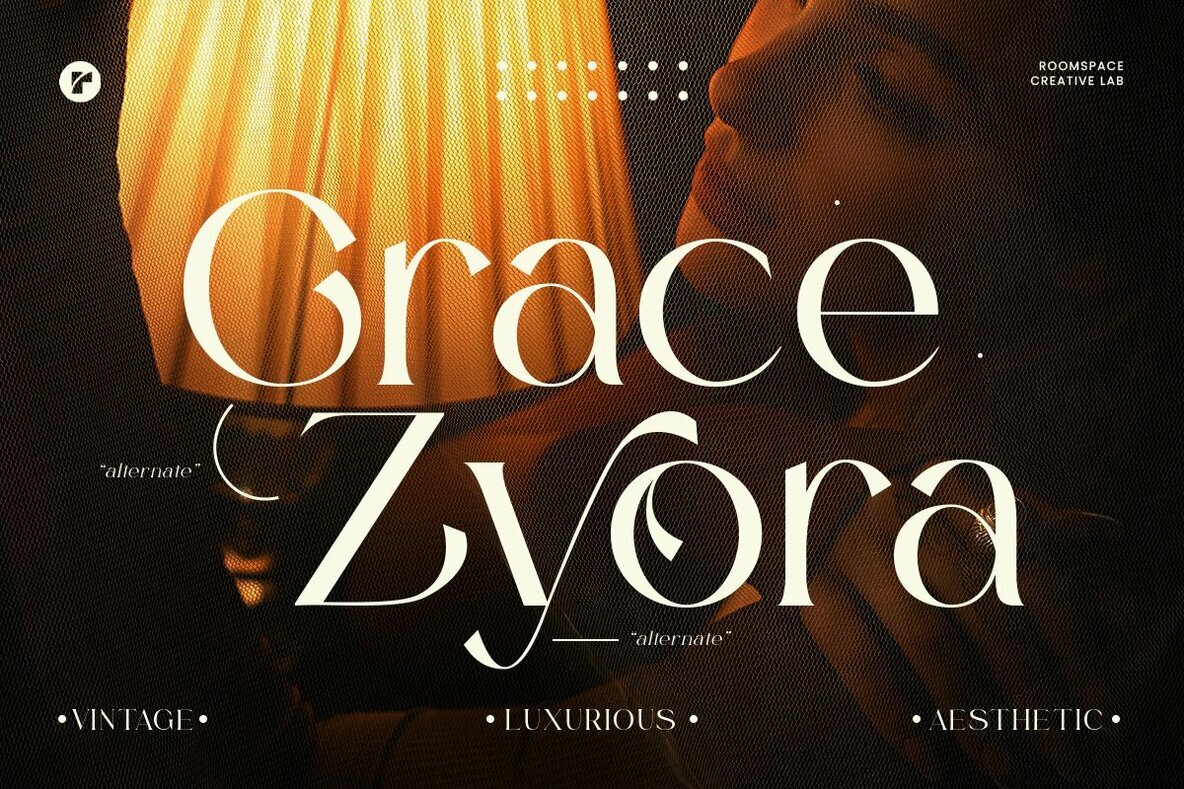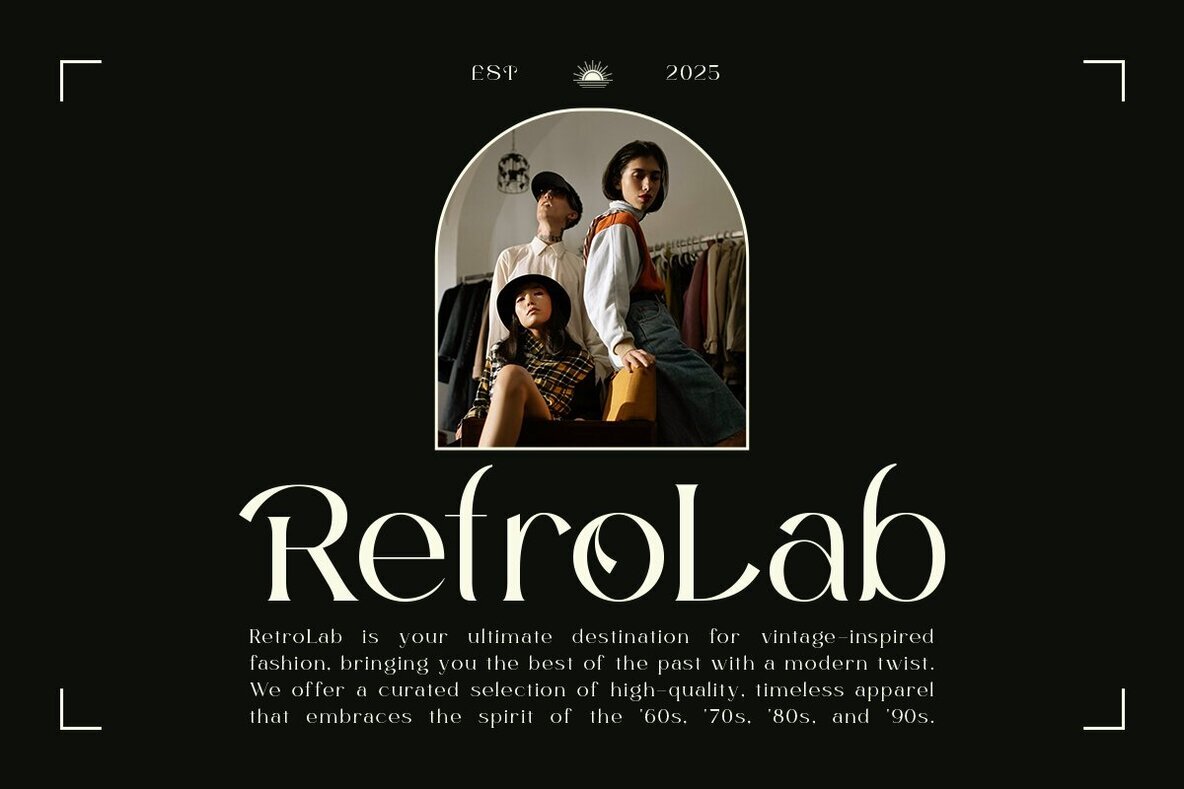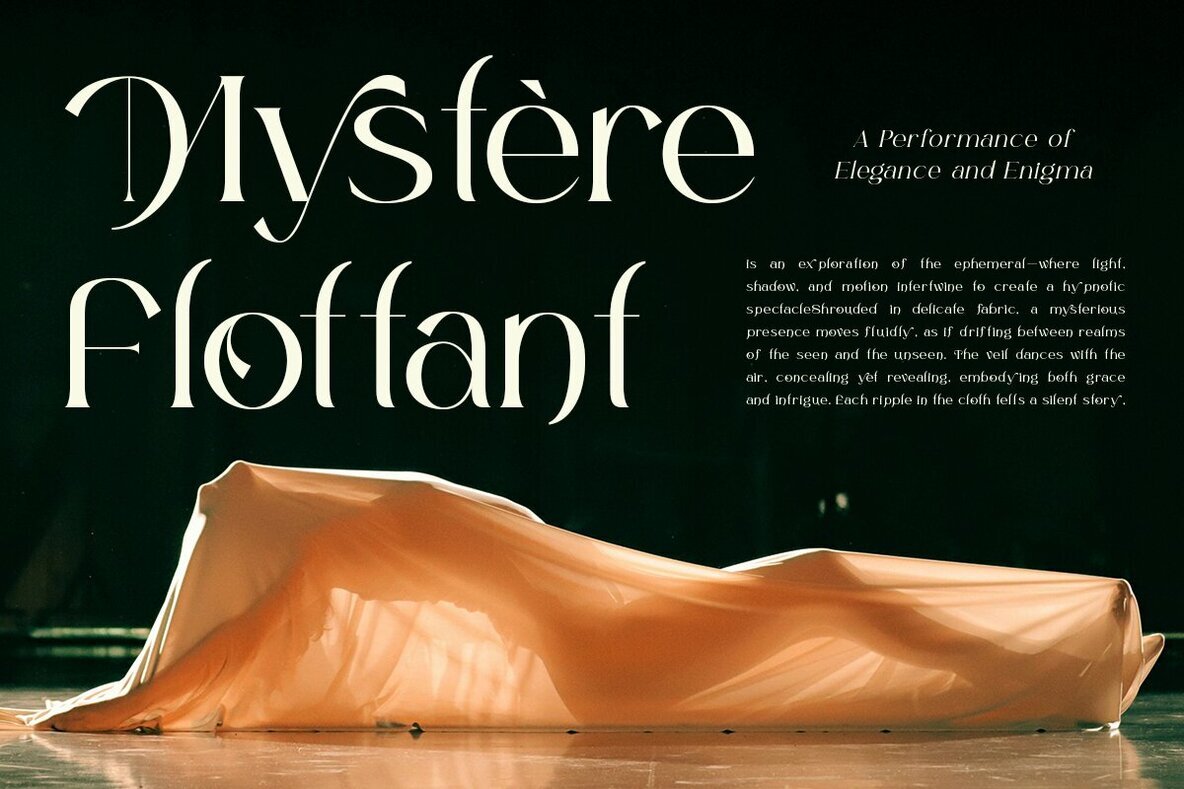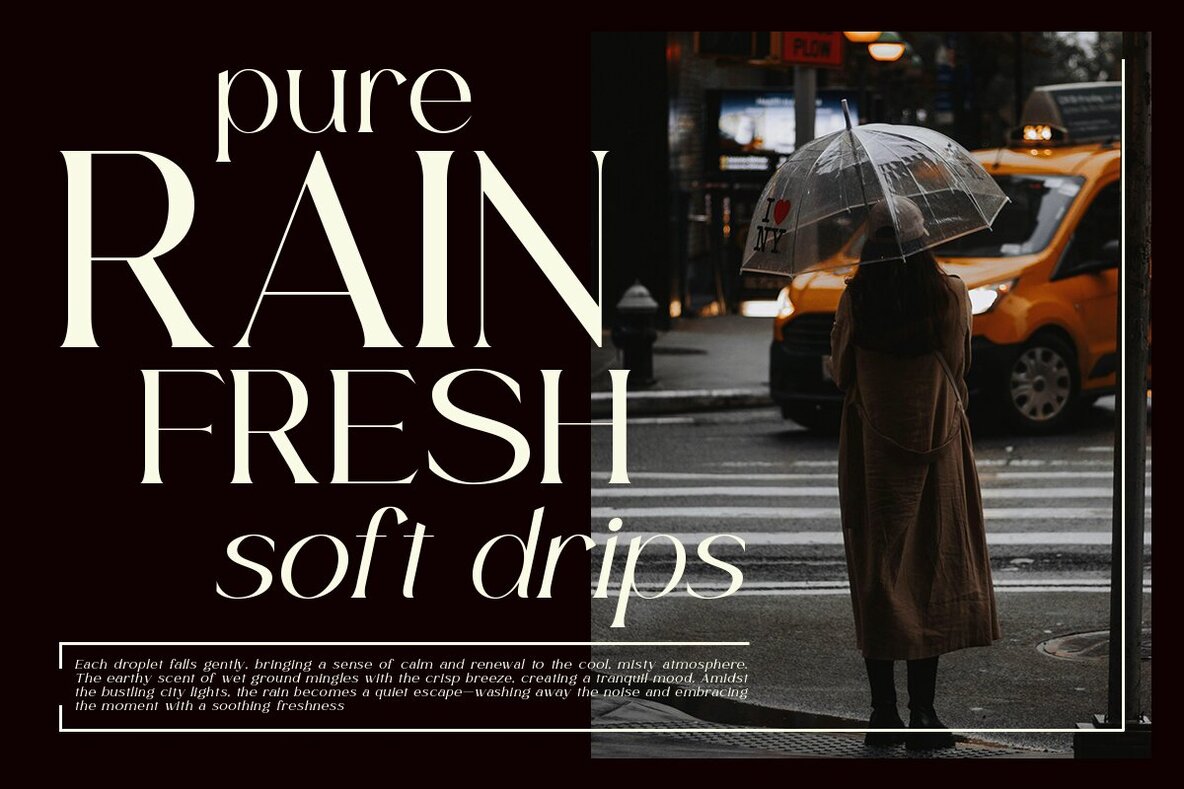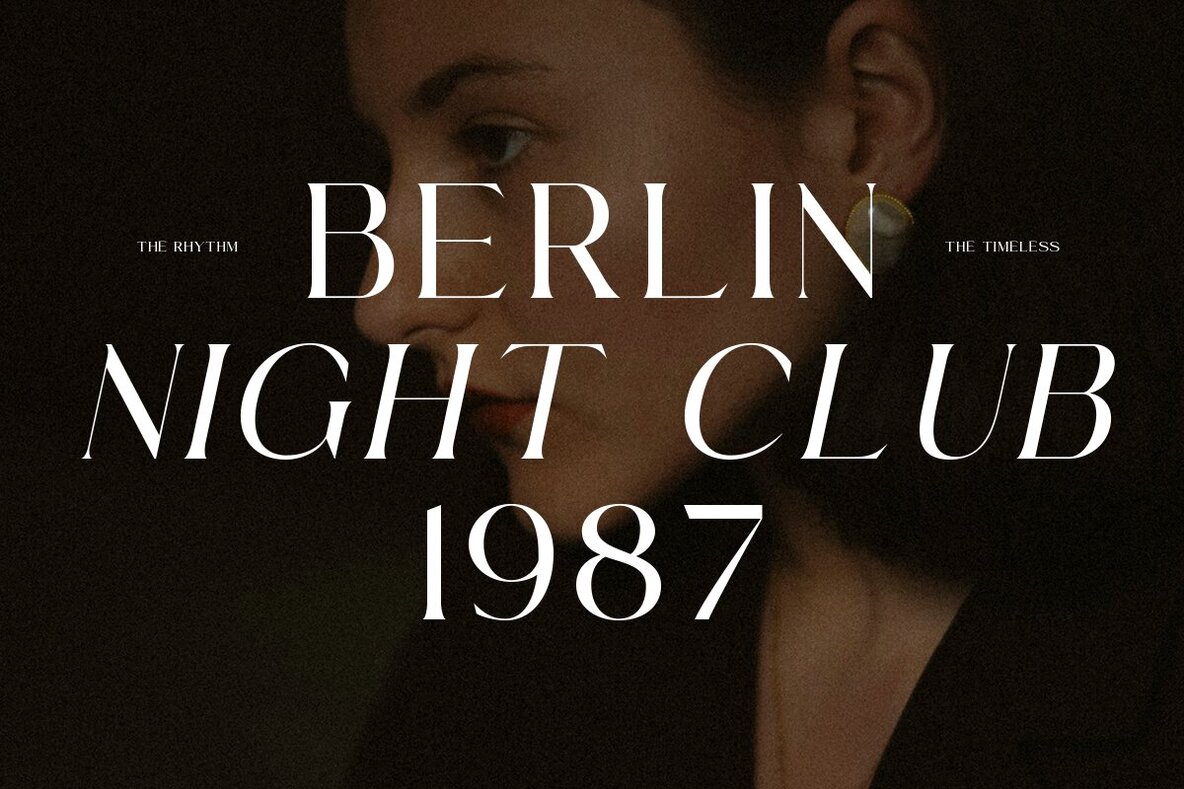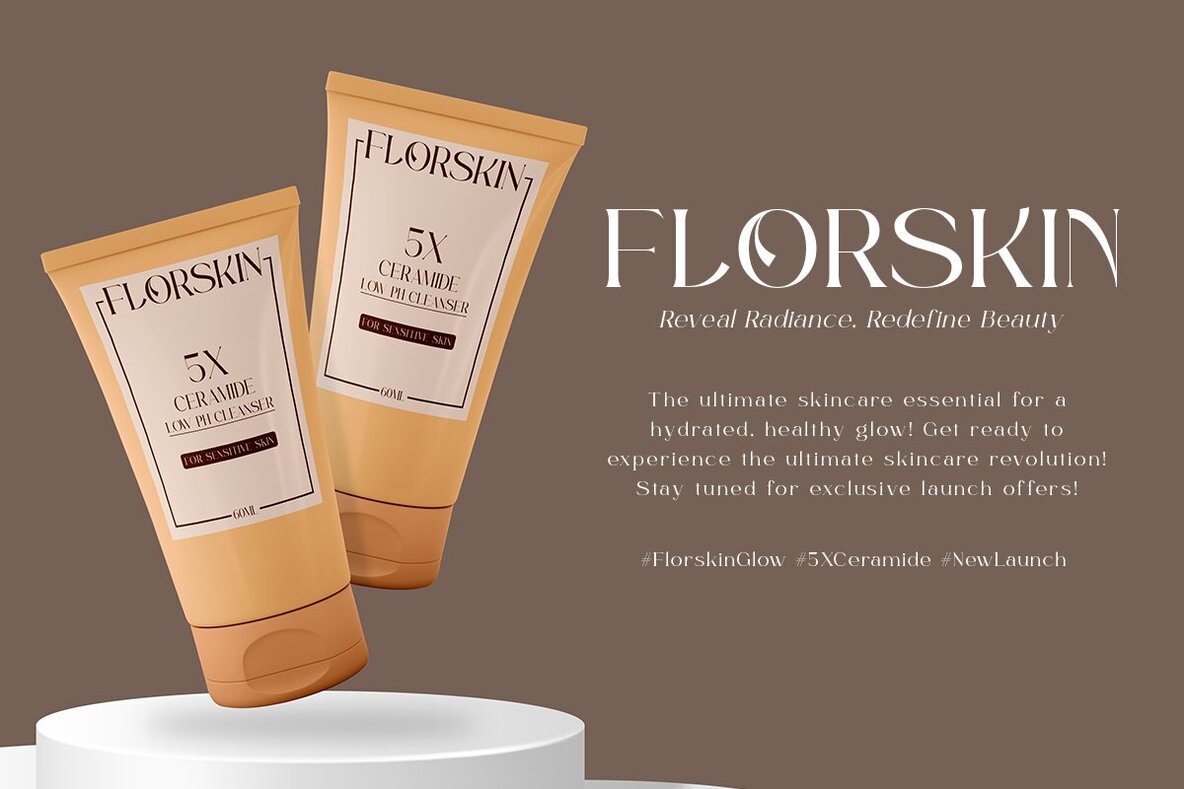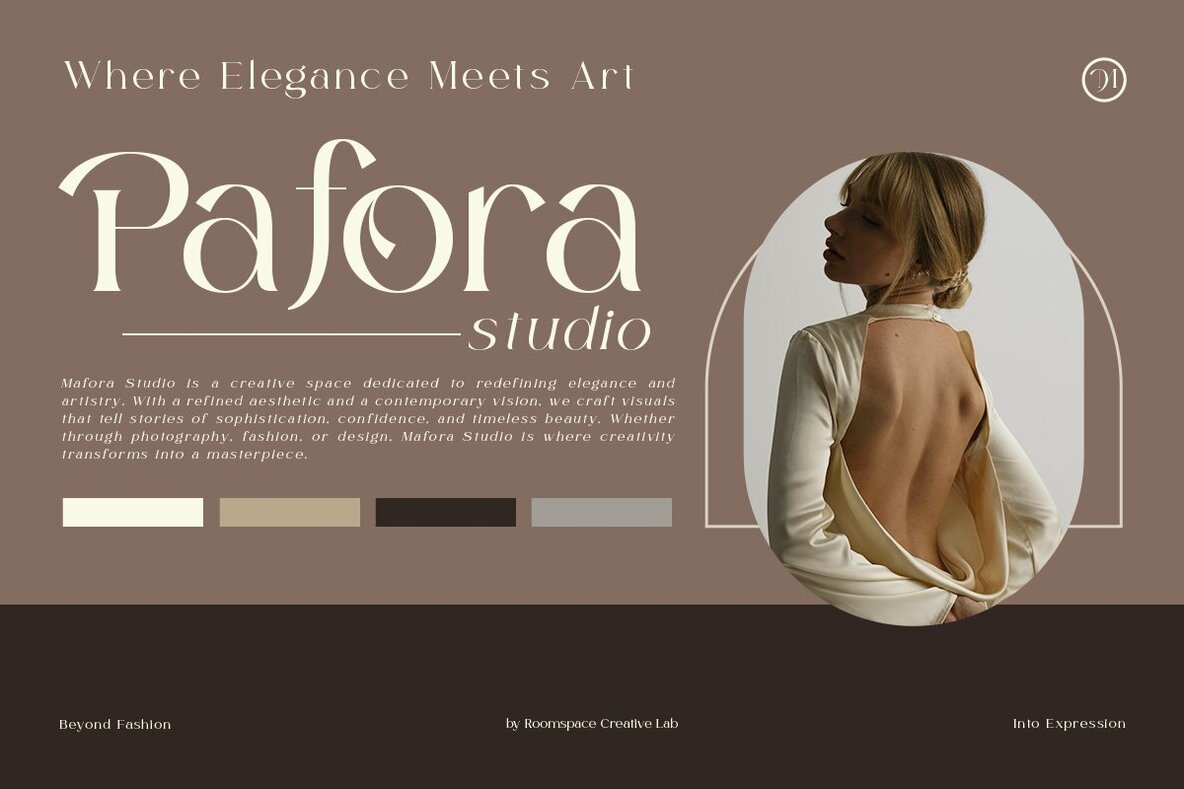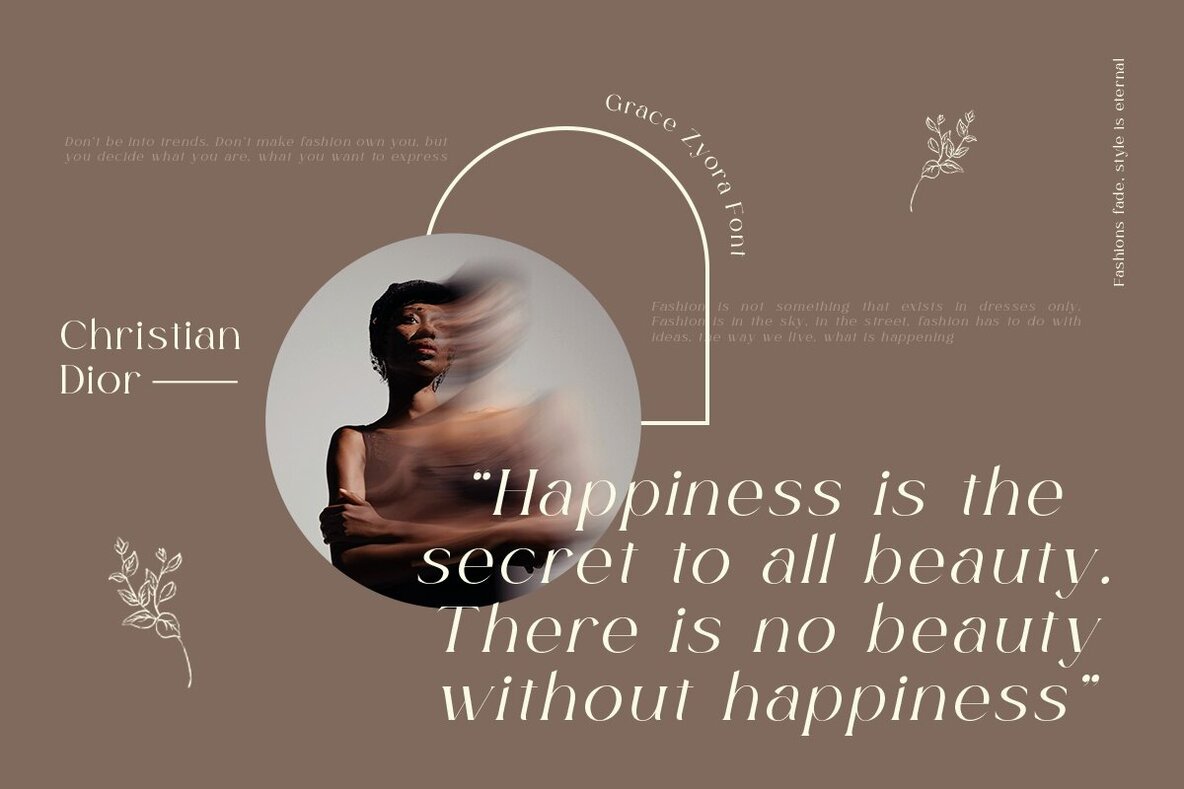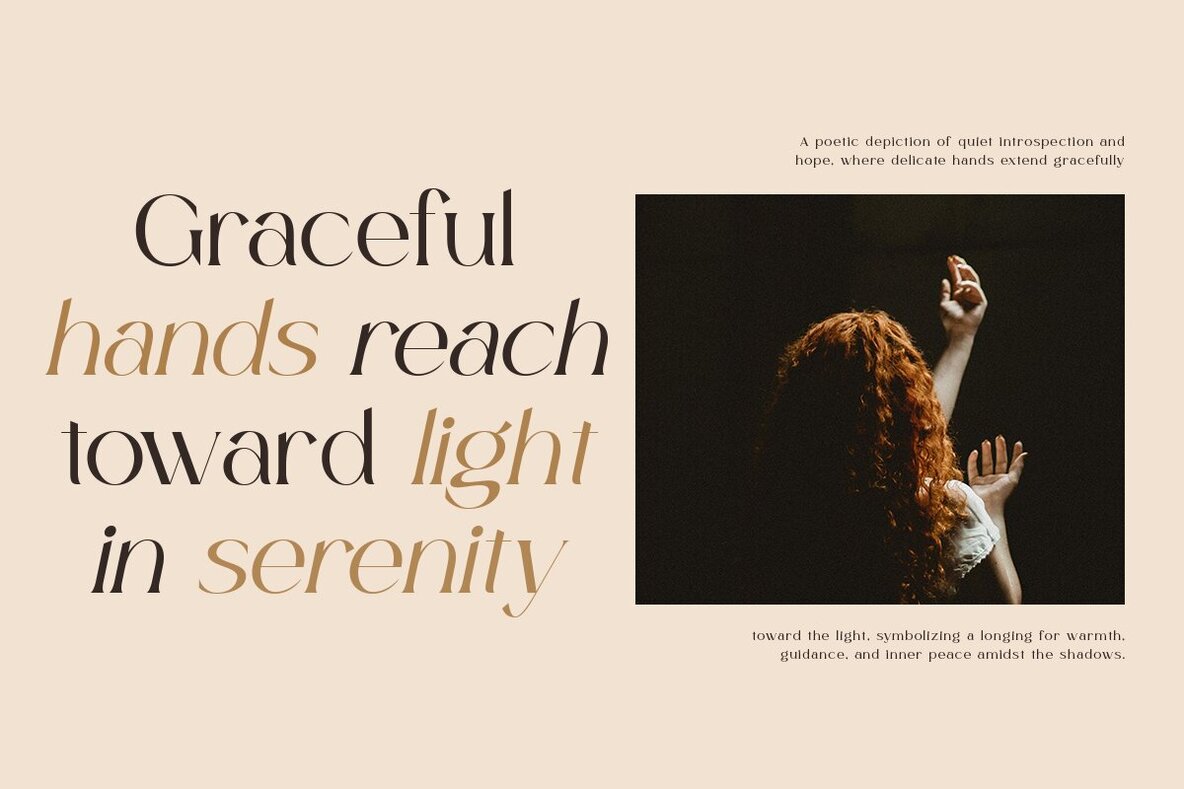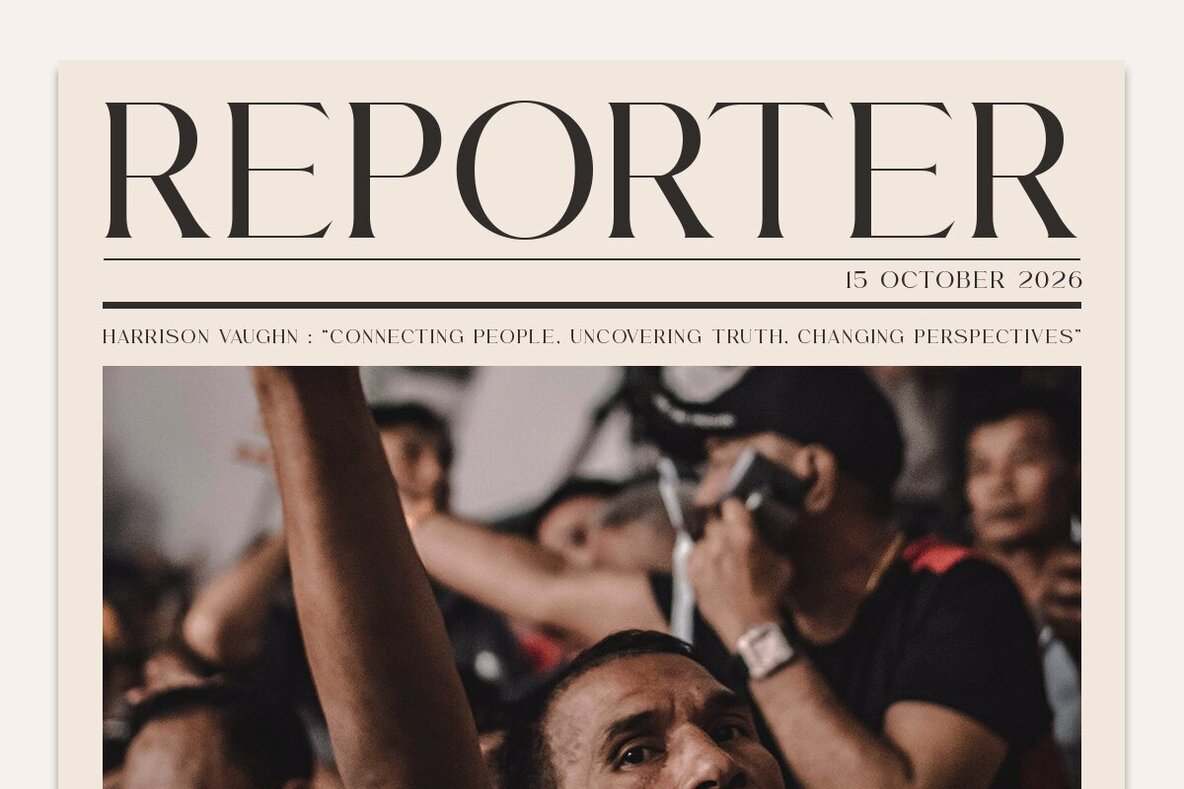
Grace Zyora Font
Grace Zyora is a versatile typeface that captures a perfect blend of vintage sophistication and modern appeal, making it ideal for luxury branding, editorial layouts, and bold logo designs. Whether you're crafting a timeless wedding invitation or developing a high-end brand identity, Grace Zyora adds a touch of refinement and elegance to any project. Its elegant curves and striking alternates enhance the design, ensuring it leaves a memorable impression.
This typeface supports regular and italic styles, offering a diverse range of alternates and ligatures to enhance your creative possibilities. It includes a complete set of uppercase and lowercase letters, numbers, and punctuation, along with multilingual support to cater to diverse design needs. Grace Zyora is compatible with both PC and Mac systems, ensuring seamless installation and use across various platforms. Whether layered over bold visuals or paired with minimal backdrops, Grace Zyora is designed to make your designs stand out.